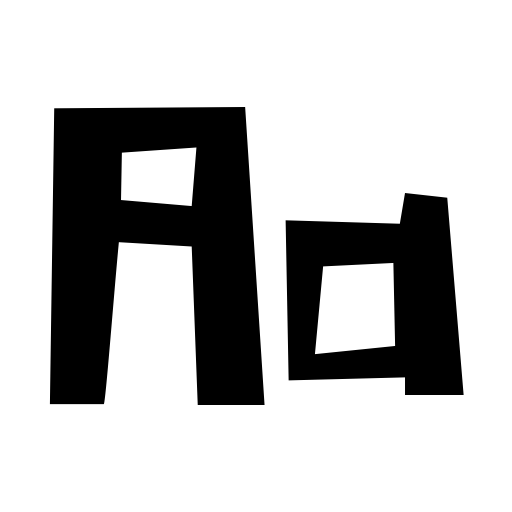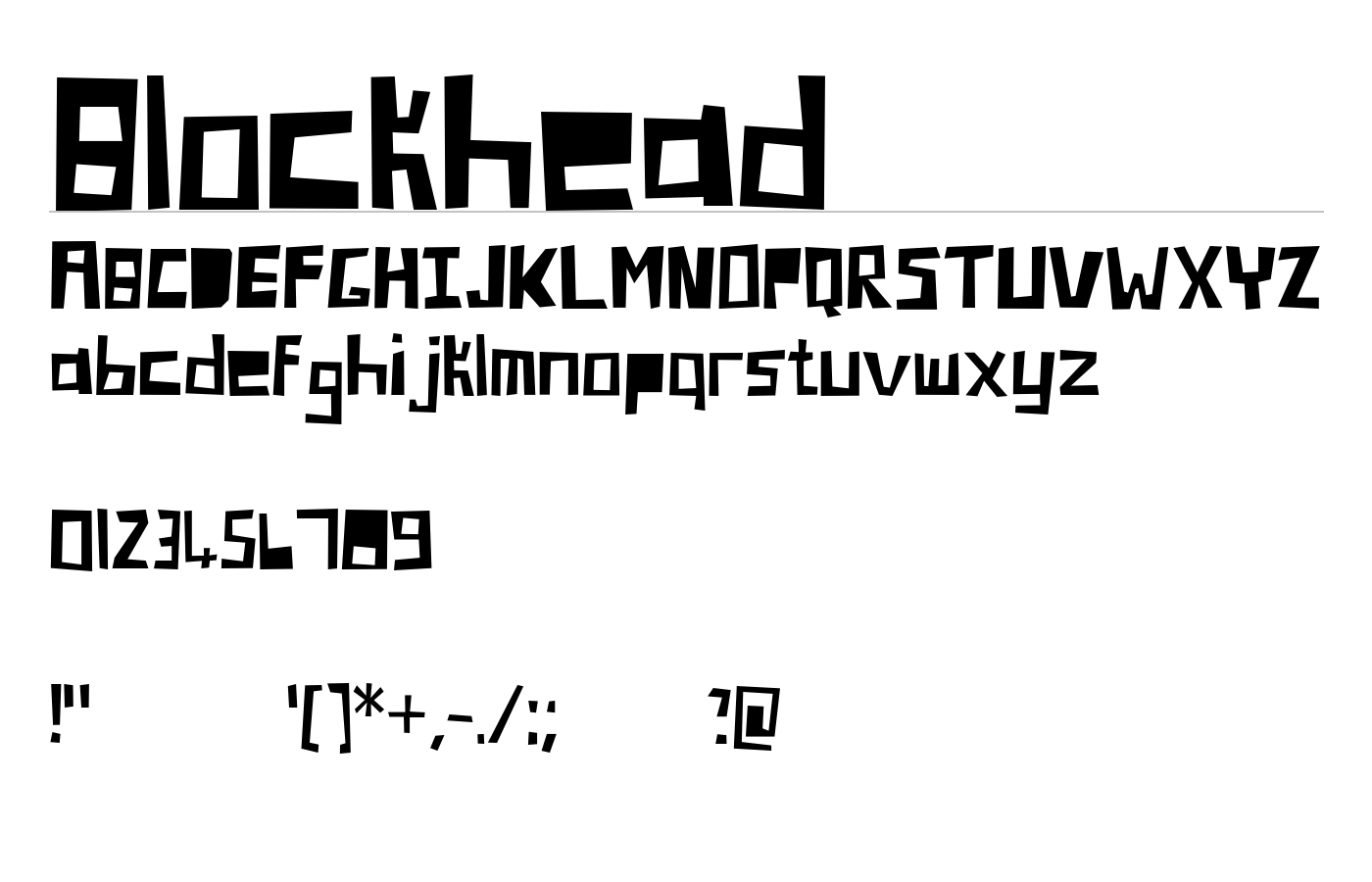
Blockhead is a bold and playful sans serif font characterized by its quirky, uneven, and blocky letterforms that give it a hand-crafted, informal vibe. With its irregular shapes and varying stroke widths, it exudes a fun and energetic personality, making it ideal for creative projects, posters, and branding that want to stand out with a unique, casual style. This font works best where boldness and personality are key, bringing a lively touch to headlines and decorative uses.
Blockhead Font